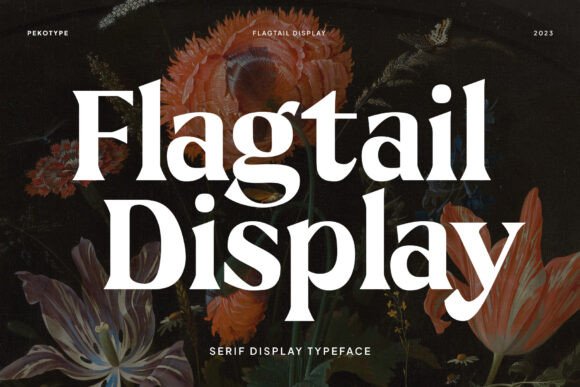
Introducing Flagtail Display Font: A Perfect Blend of Classic and Modern
In the world of typography, fonts play a crucial role in conveying messages and grabbing attention. With the ever-evolving trends in design, it’s essential to stay updated with the latest and most effective typefaces. One such font that has gained significant attention in recent times is the Flagtail Display Font. This stunning typeface seamlessly combines the familiarity of classic fonts with a modern twist, making it an ideal choice for designers and businesses looking to make a statement.
The Unique Features of Flagtail Display Font
Flagtail Display Font boasts a semi-bold and sharp shape that instantly captures the reader’s attention. Its unique design ensures that any message conveyed through this font stands out from the crowd. The excellent readability of Flagtail Display makes it perfect for headlines, branding, and advertising materials. Whether you’re looking to rebrand your products or create eye-catching headlines, this font has got you covered.
A Perfect Blend of Classic and Modern
Flagtail Display Font strikes the perfect balance between classic and modern design elements. Its classic roots provide a sense of familiarity, while the modern touch adds a fresh and contemporary feel. This blend makes it an excellent choice for designers who want to create a unique and memorable visual identity for their brand or project.
The Benefits of Using Flagtail Display Font
So, what makes Flagtail Display Font an attractive option for designers and businesses? Here are some benefits of using this versatile typeface:
- Attention-grabbing: The semi-bold and sharp shape of Flagtail Display Font ensures that your message grabs attention instantly.
- Excellent readability: The font’s clear and legible design makes it easy to read, even at smaller sizes.
- Versatility: Flagtail Display Font can be used for a wide range of applications, from headlines and branding to advertising and packaging.
- Modern and classic blend: The font’s unique blend of classic and modern design elements makes it stand out from other typefaces.
How to Use Flagtail Display Font Effectively
To make the most of Flagtail Display Font, here are some tips on how to use it effectively:
- Headlines and titles: Use Flagtail Display Font to create attention-grabbing headlines and titles that set the tone for your content.
- Branding and rebranding: Utilize the font to create a unique and memorable visual identity for your brand or rebrand your existing products.
- Advertising and marketing materials: Flagtail Display Font is perfect for creating eye-catching advertising and marketing materials, such as brochures, flyers, and posters.
- Packaging and labeling: The font’s clear and legible design makes it suitable for packaging and labeling applications.
Why Choose Flagtail Display Font?
With so many typefaces available, why should you choose Flagtail Display Font? Here are some compelling reasons:
- Unique design: Flagtail Display Font boasts a distinctive design that sets it apart from other typefaces.
- High-quality: The font is designed with high-quality and precision, ensuring that it looks great in any application.
- Easy to read: The font’s excellent readability makes it easy to read, even at smaller sizes.
- Versatile: Flagtail Display Font can be used for a wide range of applications, making it a valuable addition to any designer’s toolkit.
In conclusion, Flagtail Display Font is an exceptional typeface that combines the best of classic and modern design elements. Its unique features, benefits, and versatility make it an ideal choice for designers and businesses looking to create a lasting impression. Whether you’re looking to create attention-grabbing headlines, rebrand your products, or simply add a touch of modernity to your design, Flagtail Display Font is an excellent choice.